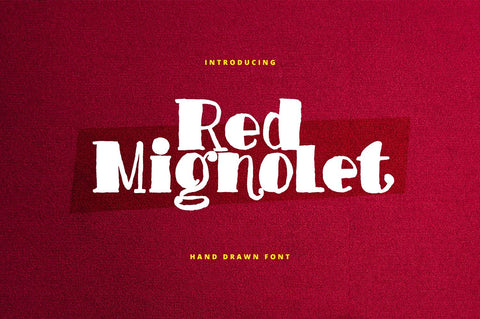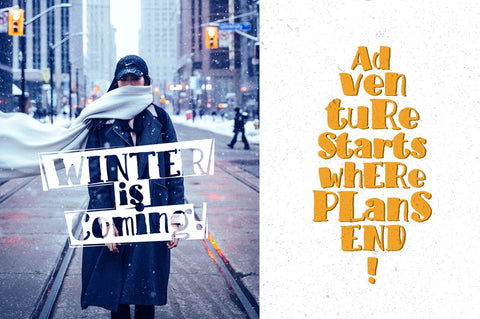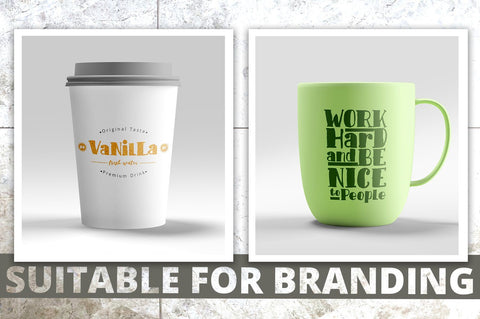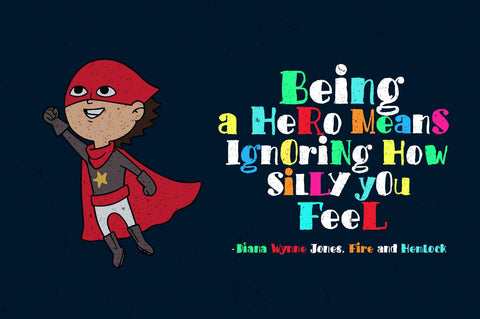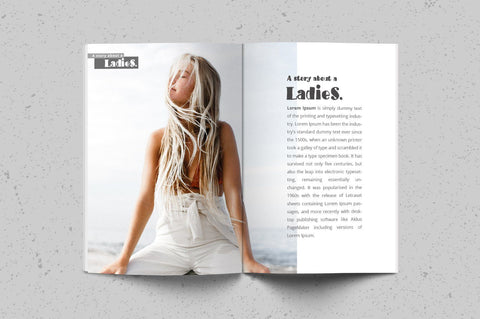
Red Mignolet - Funny Font!
Introducing Red Mignolet! Funny Font!
Red Mignolet is a hand-drawn slab type brush font. This font adopts a bold, firm, natural and trendy style. Very suitable to meet your design and packaging product needs at this time, especially when the current trend is Branding on MUG or CUP with natural fonts like painted. Please try!
With a style like this, this font will be suitable in use for logo's, branding projects, homeware designs, product packaging, mugs, quotes, posters, shopping bags, logo's, t-shirts, book covers, name card, invitation cards, greeting cards, and all your other lovely projects.